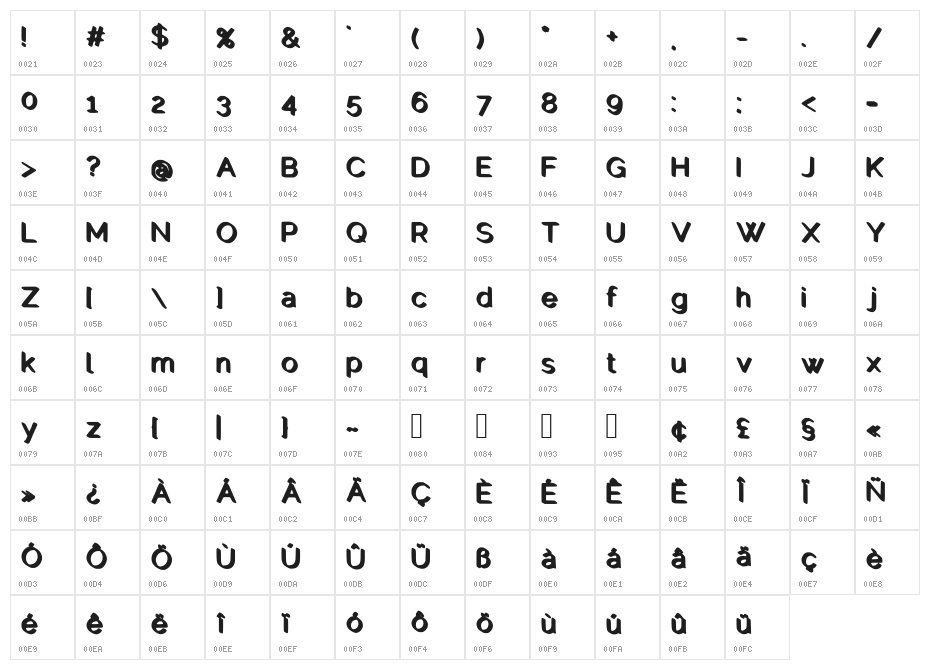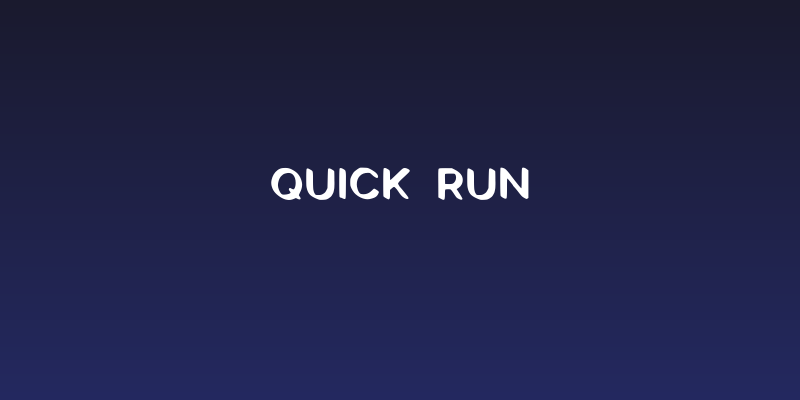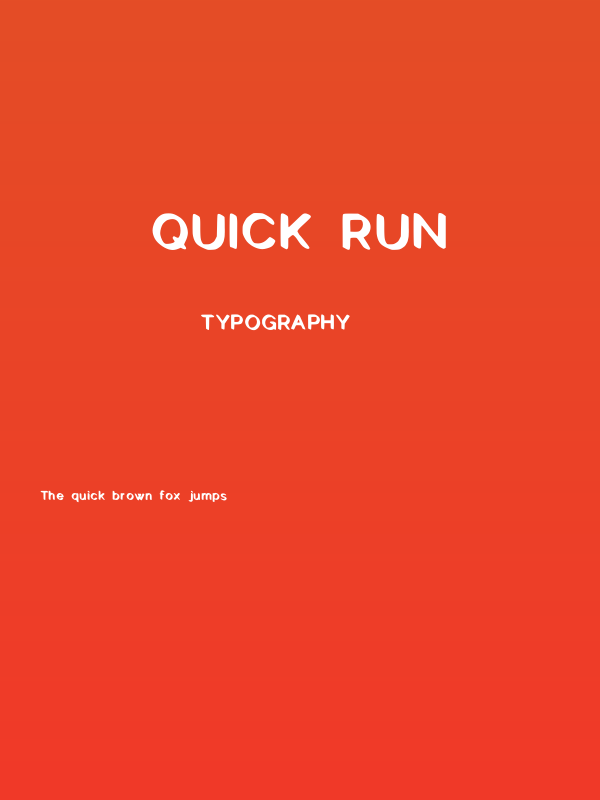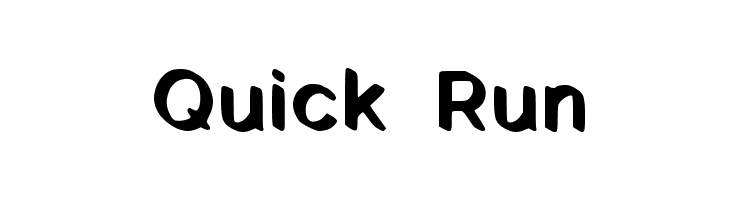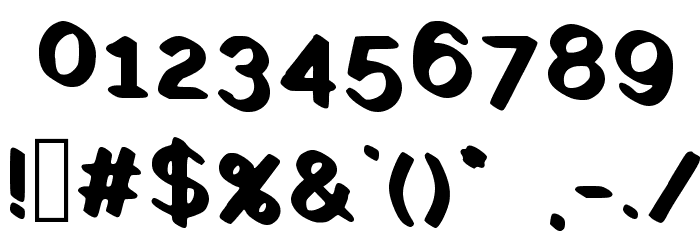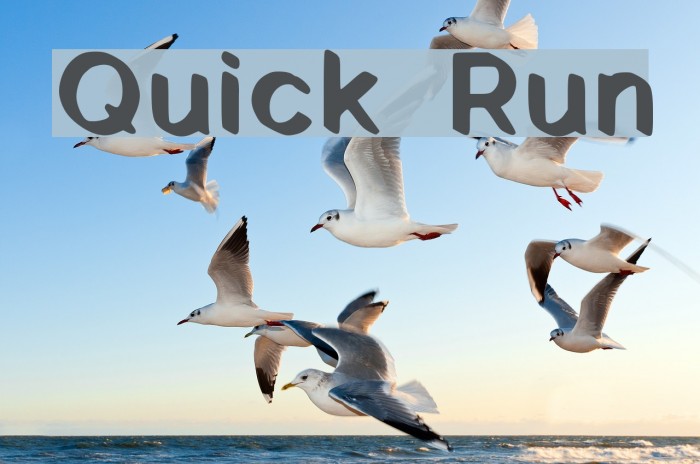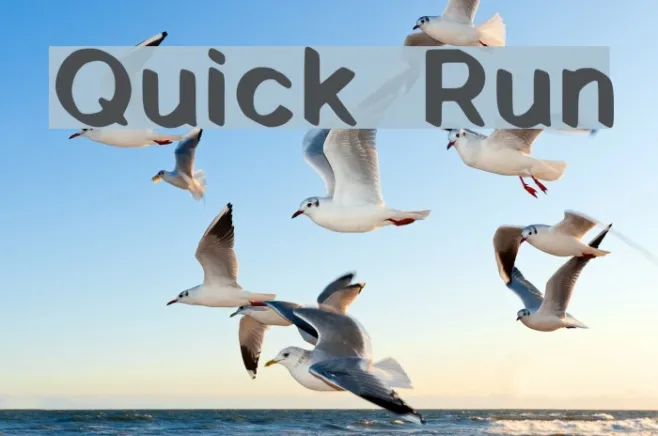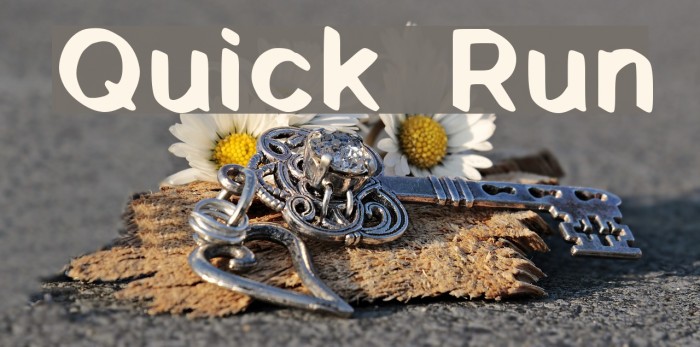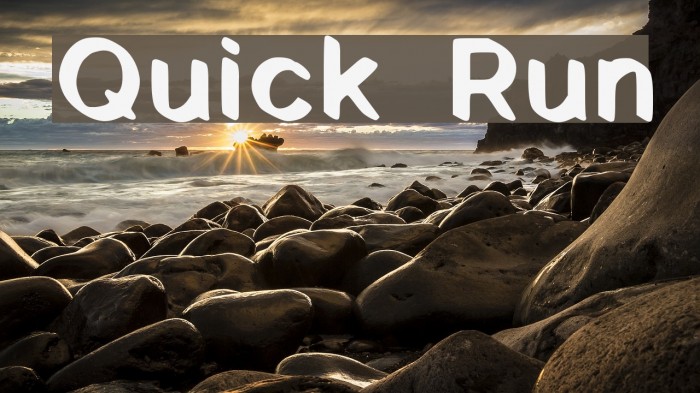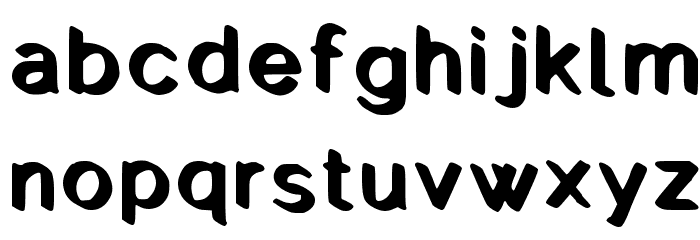
Quick Run Font
Quick Run Description
This font features a playful and rounded style, characterized by its bold and friendly appearance. The letters are slightly irregular, giving it a hand-drawn feel that adds a touch of whimsy. The uppercase and lowercase letters maintain a consistent weight, providing a harmonious look across the alphabet. The numerals are clear and easy to read, while the special characters retain the same playful aesthetic. This font is ideal for projects that require a casual and approachable vibe, making it suitable for children's books, playful branding, or informal invitations.
| Overall Style | Playful, Casual |
| Proposed Projects | Children's books, playful branding, informal invitations, casual posters. |